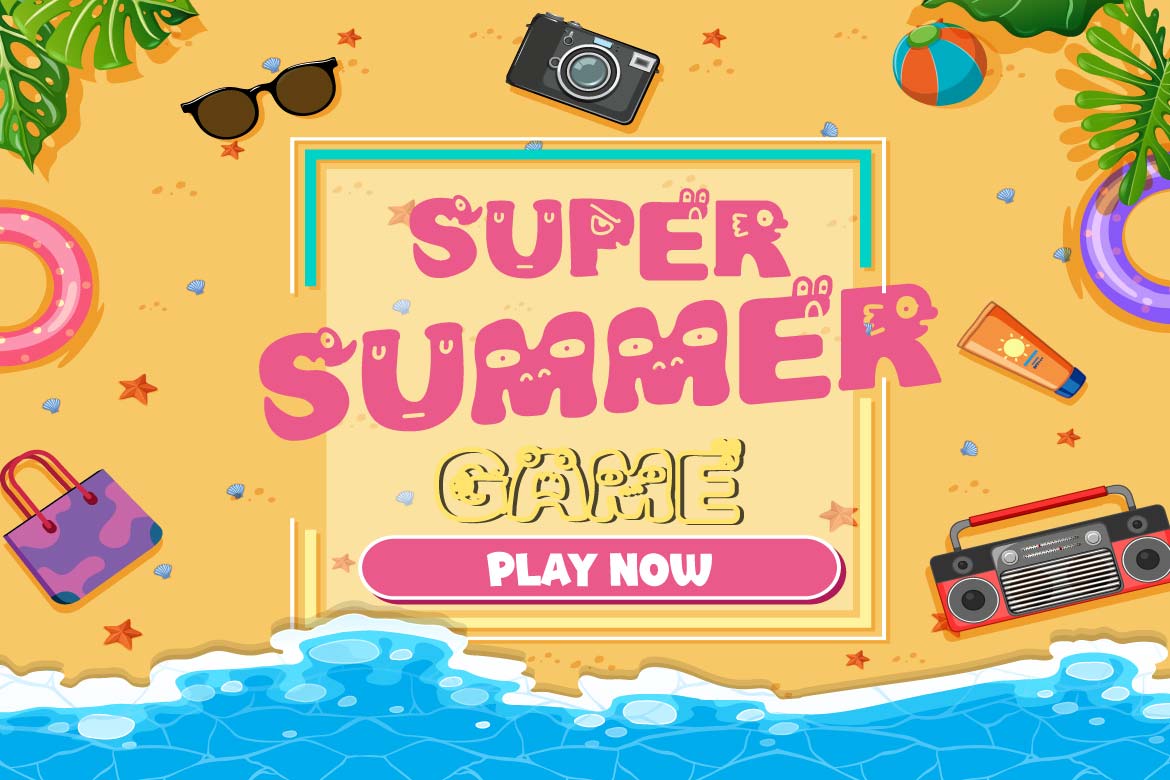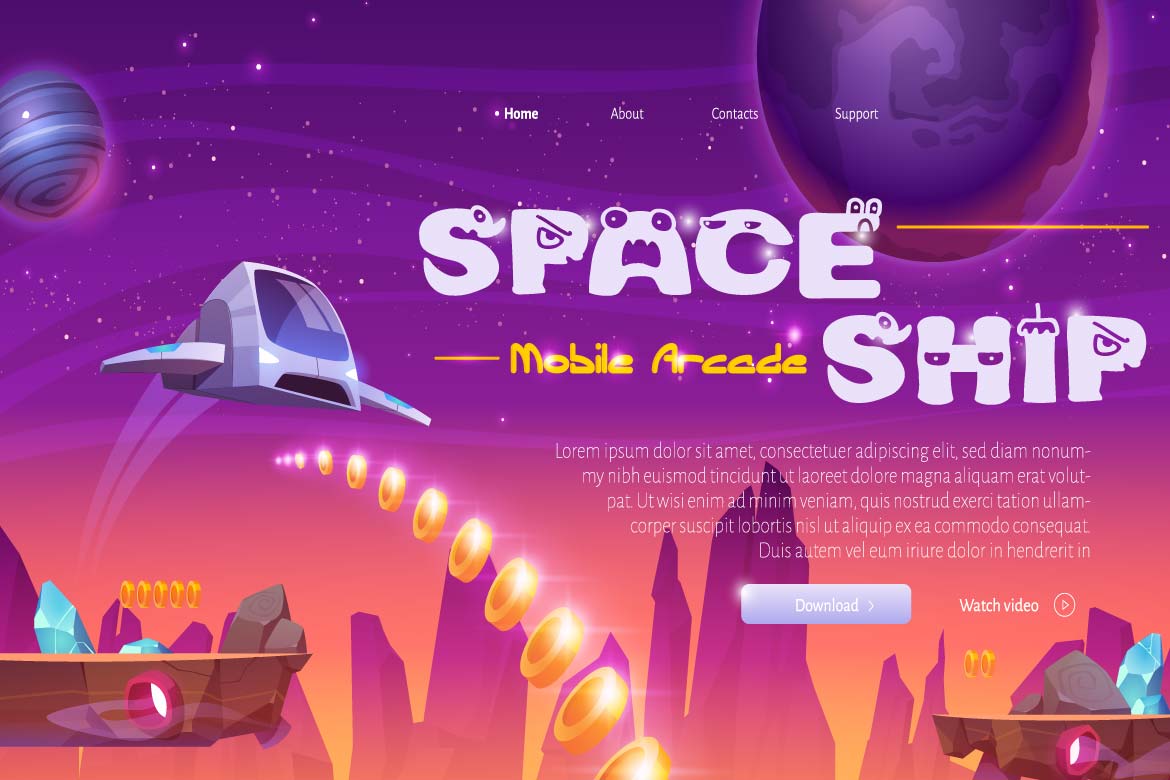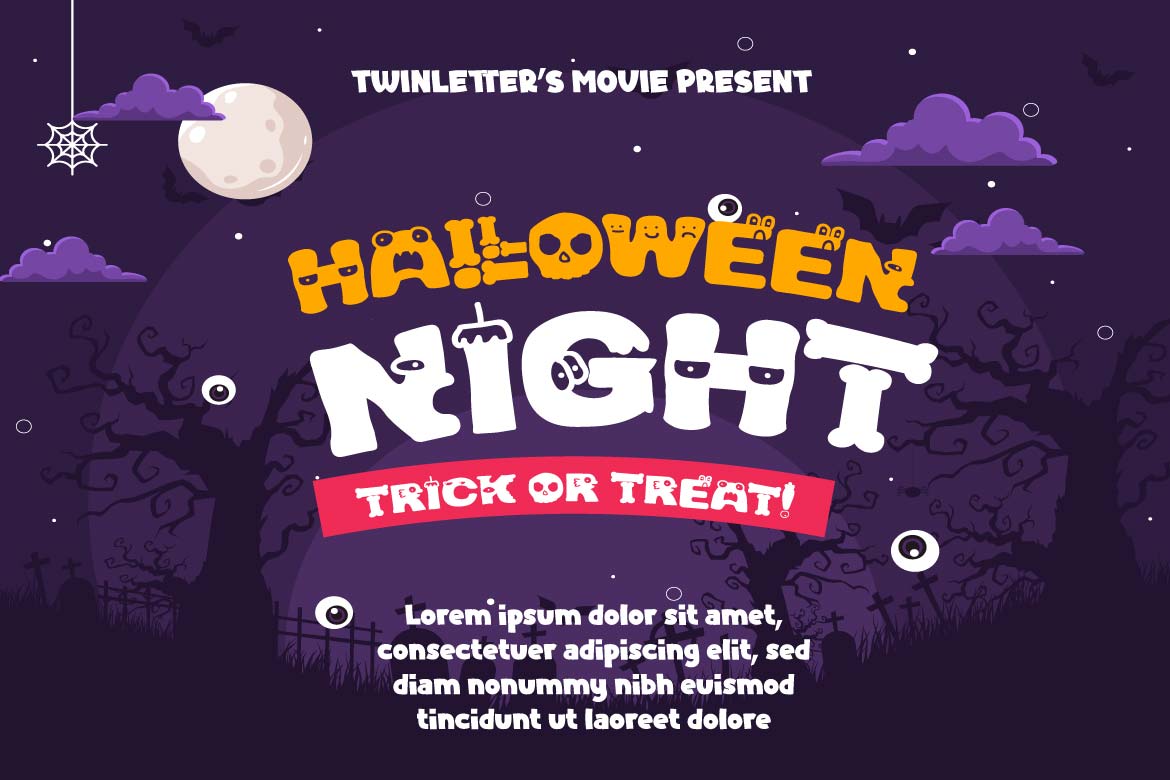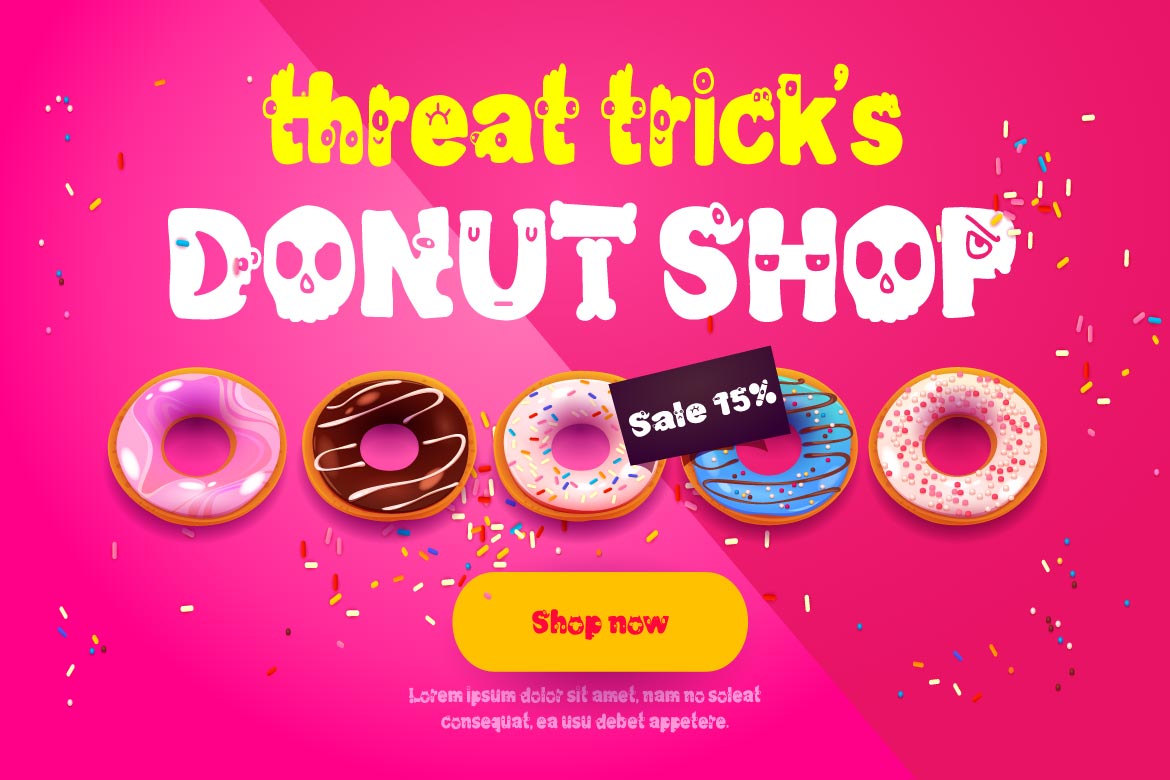
Qindars Font
Qindars Display Font
This is a display font with a unique and fun theme, created by paying close attention to the uniqueness of each letter character, as well as the level of precision so that when used in words or sentences, it can produce a truly beautiful combination of letters, all of which we carefully designed for ourselves.